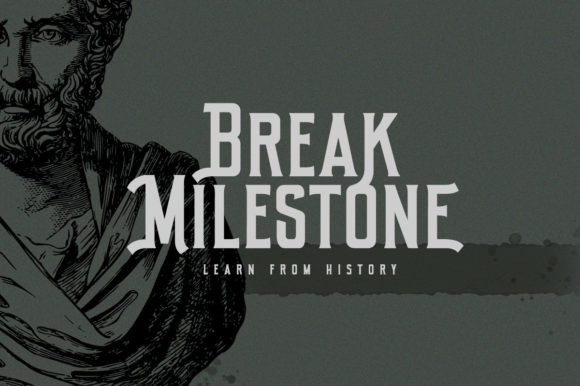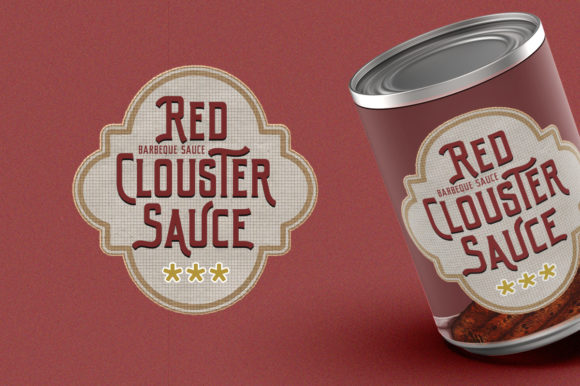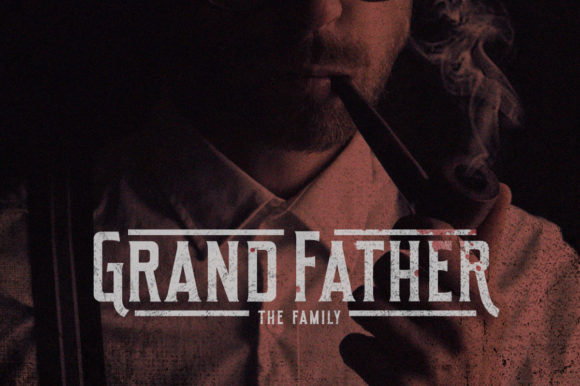
Introduction to Rosterine Font
Rosterine is a cool, vintage styled display font.
No matter the topic, this font will be an incredibly asset to your fonts’ library, as it has the potential to elevate any creation .
Rosterine Font offers exceptional quality and versatility, making it a valuable addition to your design toolkit. Whether you’re creating for personal projects or commercial use, Rosterine Font delivers professional results.